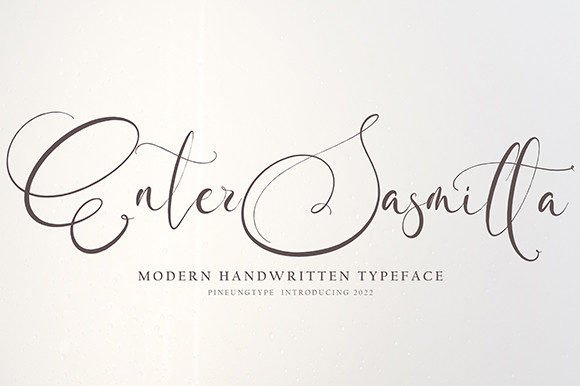
Introducing Enter Sasmitta Font: Elevate Your Designs with Elegance and Sophistication
Are you on the hunt for a font that exudes class, elegance, and modernity? Look no further than Enter Sasmitta, a stunning script font designed to take your creative projects to the next level. With its refined and sophisticated aesthetic, Enter Sasmitta is perfect for designers, crafters, and anyone looking to add a touch of luxury to their work.
What Makes Enter Sasmitta Font So Special?
Enter Sasmitta is not just another font; it’s a game-changer. Its beautiful, flowing script design makes it ideal for a wide range of applications, from logos and branding to invitations, stationery, wedding designs, social media posts, and more. The font’s versatility is unmatched, allowing you to use it for both personal and commercial projects.
Key Features of Enter Sasmitta Font
• Classy, Elegant, and Modern Design: Enter Sasmitta boasts a sophisticated and refined look that’s sure to impress. Its modern design ensures that your projects will stand out from the crowd.
• PUA Encoded: This font is PUA (Private Use Area) encoded, which means you can access all glyphs and swashes with ease. This feature makes it simple to customize your text and add unique flourishes to your designs.
• Wide Range of Applications: From logos and branding to invitations and social media posts, Enter Sasmitta is the perfect choice for any project that requires a touch of elegance.
Why Choose Enter Sasmitta Font?
With so many fonts available, why should you choose Enter Sasmitta? Here are just a few reasons:
• Unique and Eye-Catching Designs: Enter Sasmitta’s distinctive script design ensures that your projects will grab attention and leave a lasting impression.
• Easy to Use: The font’s PUA encoding makes it simple to access all glyphs and swashes, allowing you to customize your text with ease.
• High-Quality and Versatile: Enter Sasmitta is a high-quality font that’s versatile enough to be used for a wide range of projects, from print materials to digital designs.
How to Use Enter Sasmitta Font in Your Designs
Using Enter Sasmitta in your designs is easy. Here are a few tips to get you started:
• Pair it with Other Fonts: Enter Sasmitta pairs well with a variety of fonts, so don’t be afraid to experiment and find the perfect combination for your project.
• Experiment with Swashes and Glyphs: Take advantage of the font’s PUA encoding to add unique swashes and glyphs to your text.
• Use it for Headings and Titles: Enter Sasmitta’s elegant design makes it perfect for headings and titles, adding a touch of sophistication to your projects.
Font Name Enter Sasmitta Font
Author Pineungtype & Missinklab
Enter Sasmitta font is a game-changer for designers and crafters looking to add a touch of elegance and sophistication to their projects. With its refined script design, PUA encoding, and versatility, this font is sure to become a staple in your design toolkit. Whether you’re working on a logo, branding, invitations, or social media posts, Enter Sasmitta is the perfect choice. So why wait? Download Enter Sasmitta font today and take your designs to the next level!